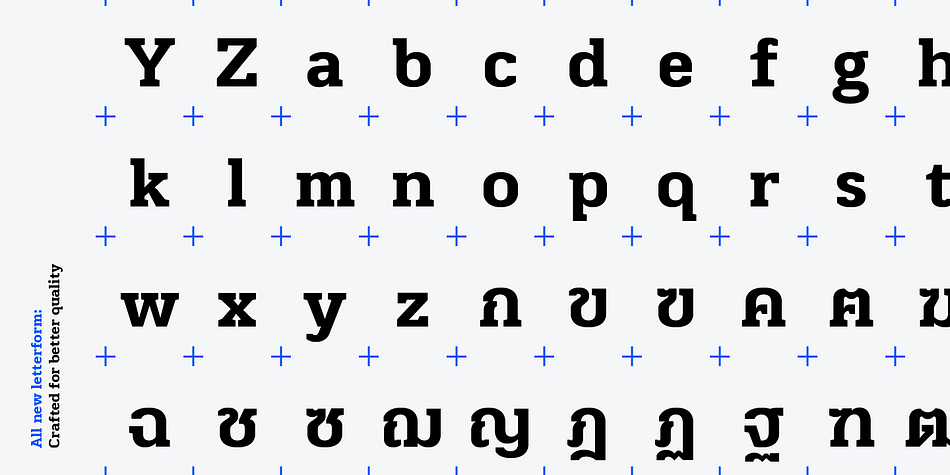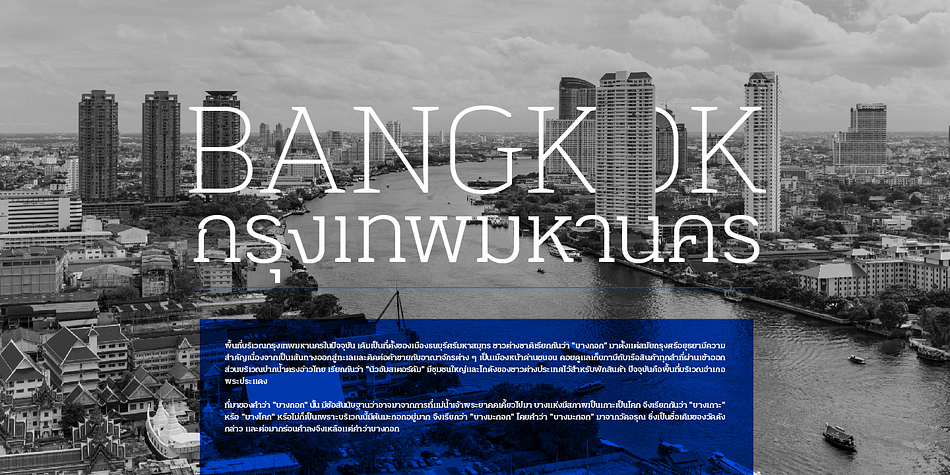
MartiniThai Neue Slab V2
Designed by Kwanchai Akkaratammagul, MartiniThai Neue Slab V2 is a slab serif font family. This typeface has six styles and was published by Deltatype.
From award winning 2017 font from Demark (Thailand) and G-Mark (Japan) in Graphic Design, MartiniThai Neue Slab now available with better taste.
Deltatype create better version of MartiniThai Neue Slab V2 by refined for better outline, we fine-tuned all outline for better letterform. Proportion adjust for better consistent. Metric, refine new metric value for increase readability. Kerning, fine-tuned kerning pair for better between letters.
MartiniThai Neue Slab V2 come in six weights from Thin, Light, Regular, Bold, Extra Bold, Black. Thai Language is included in this package.
MartiniThai Neue Slab, a unique slab serif in Thai Scripts that create sense of timeless and contemporary used by media provider and nationwide in Thailand.